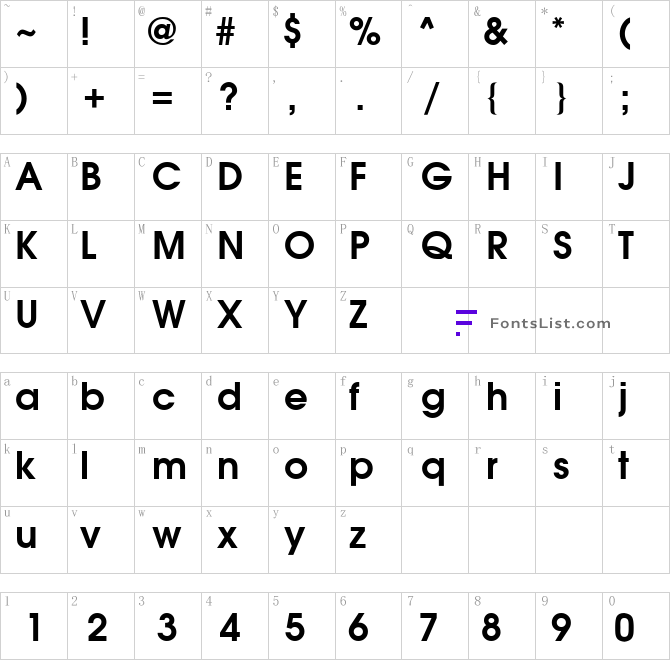
- Font Name:Avian
Avian-Bold-copy-1-.ttf is a very beautiful artistic font, Avian-Bold-copy-1-.ttf is widely used in the design and printing of various books and pictures,Avian-Bold-copy-1-.ttf has a strong visual impact,Avian-Bold-copy-1-.ttf is a commonly used font in newspapers, magazines and books, and is used in posters, e-commerce Poster design, store design, logo design, font design and other fields.Avian-Bold-copy-1-.